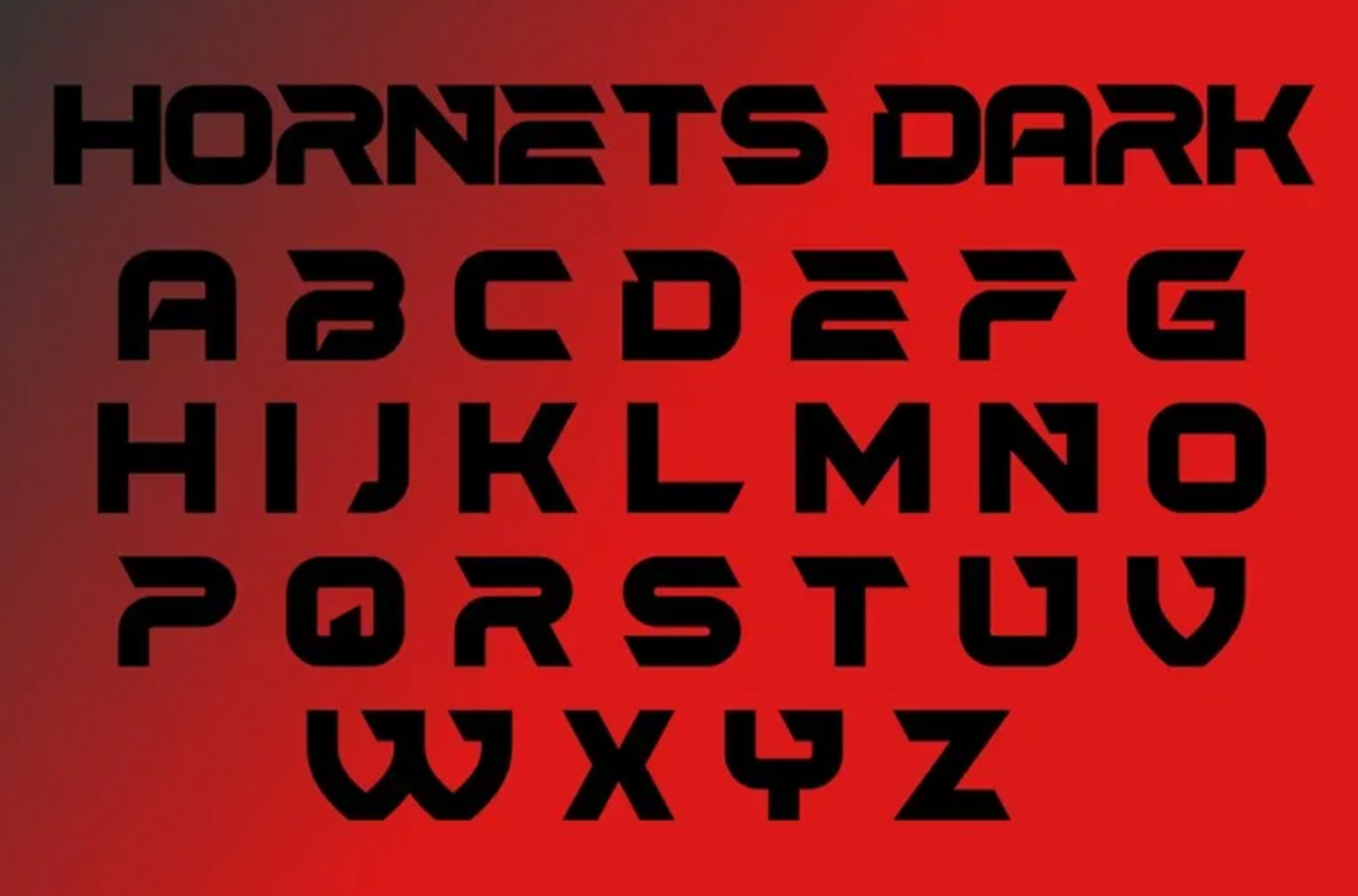
Hornets Dark Font is a bold and futuristic display typeface featuring sharp geometric shapes, angular cuts, and a strong industrial style. Its modern techno-inspired appearance gives every design a powerful, energetic, and high-impact look.
This font is a great choice for gaming projects, esports logos, technology branding, sci-fi posters, modern titles, digital artwork, and creative designs that need a strong and stylish visual identity.
StyleDisplay Font